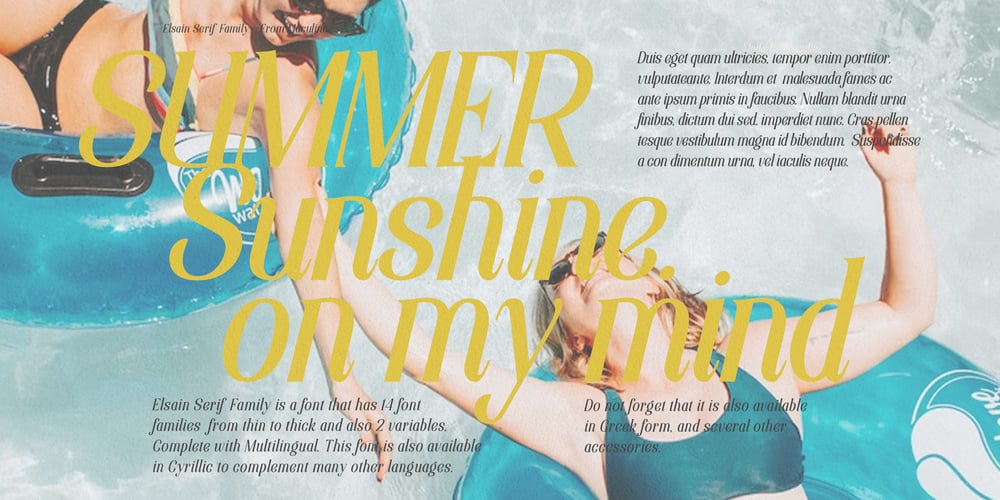
Elsain Serif Font Font Family was designed by Lukmanul Khikmatullah and published by Maculinc. Elsain Serif Font contains 16 styles and family package options. Elsain is a serif family font that is very unique on the edges with different angular styles, the spacing between these fonts is made very tight to deepen the character of this font.This font is great in layout design for quotes or body copy, best used as a display for headings, logos, branding, magazines, product packaging, invitations or anything else.Elsain Serif Family has many features such as Multilingual support, has 14 font families from thin to thick and also 2 variables. This font is also available in Cyrillic to complement many other languages. Not to forget it is also available in Greek form, and some other accessories. This completeness can be used in various letters from various countries such as English, Indonesian, Afrikaans, Basque, Breton, Catalan, Danish, Dutch, Finnish, French, Gaelic, German, Icelandic, Irish, Italian, Norwegian, Portuguese, Saami, Spanish, Swahili , SwedenCroatia, Czech, Estonian, Hungarian, Latvian, Lithuanian, Polish, Romanian, Serbian, Slovak, Slovenian, Turkish, Avar, Balkar, Belarusian, Bulgarian, Chechen, Erzya, Ingush, Lezgian, Macedonian, Moldavian, Ossetian, Russian, Serbian , Ukrainian, Greek and others.16 Fonts2 Variable FontsMultilingual SupportIf you are looking for a custom font or web license, and for support, feel free to contact us at maculinc@gmail.comThank you for visiting us and don’t forget to follow us :Behance ( https://www.behance.net/maculinc )Dribbble ( https://dribbble.com/Maculinc )Instagram ( https://www.instagram.com/maculinc/ )